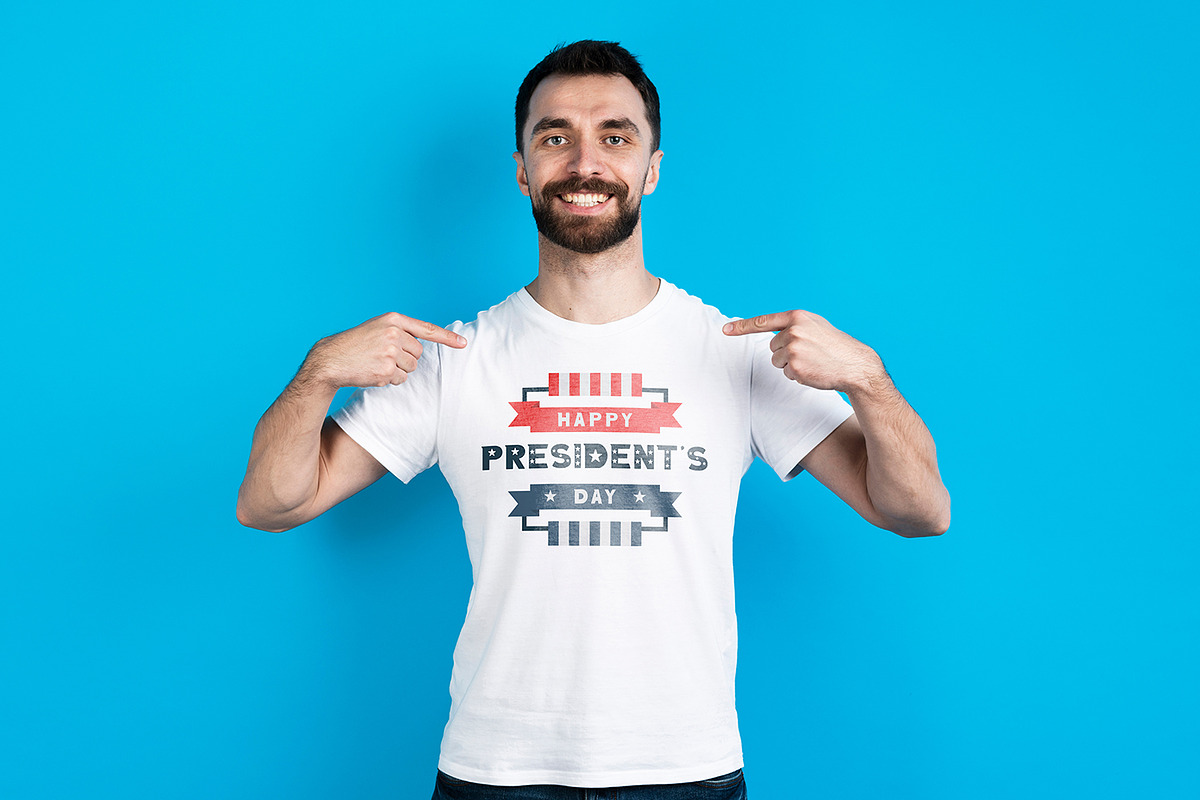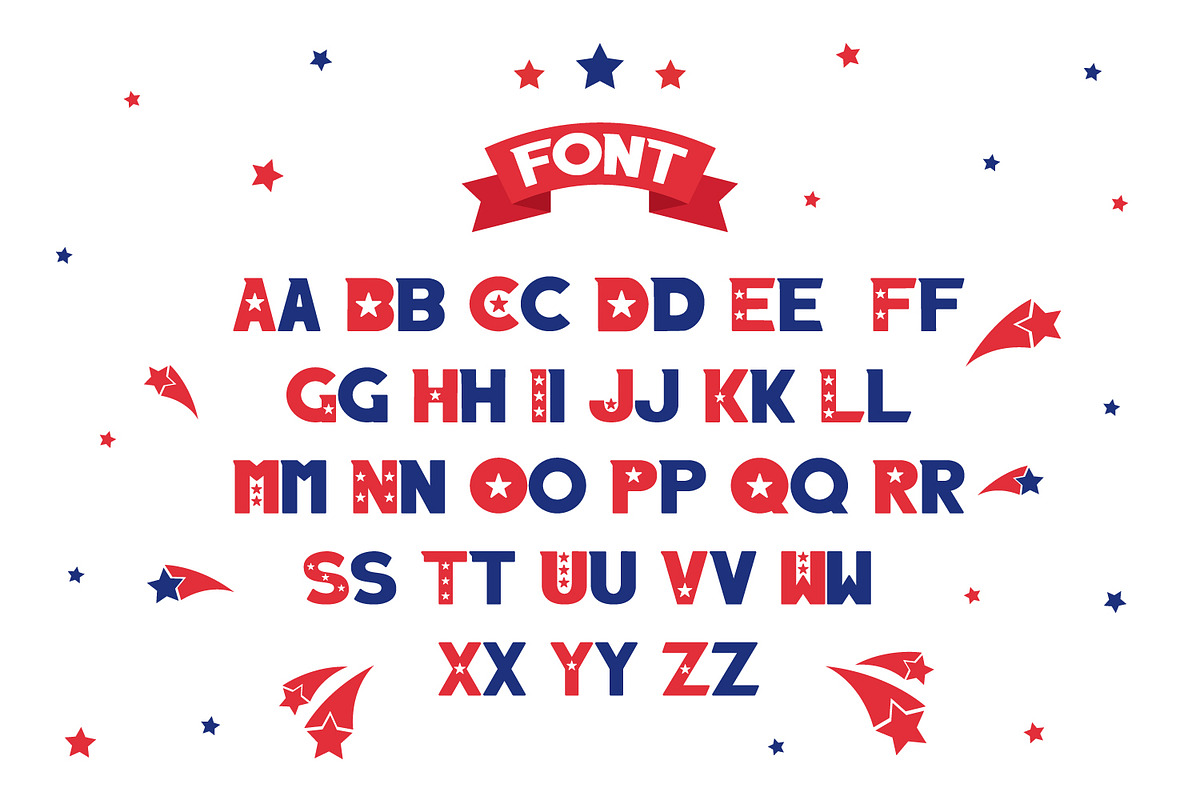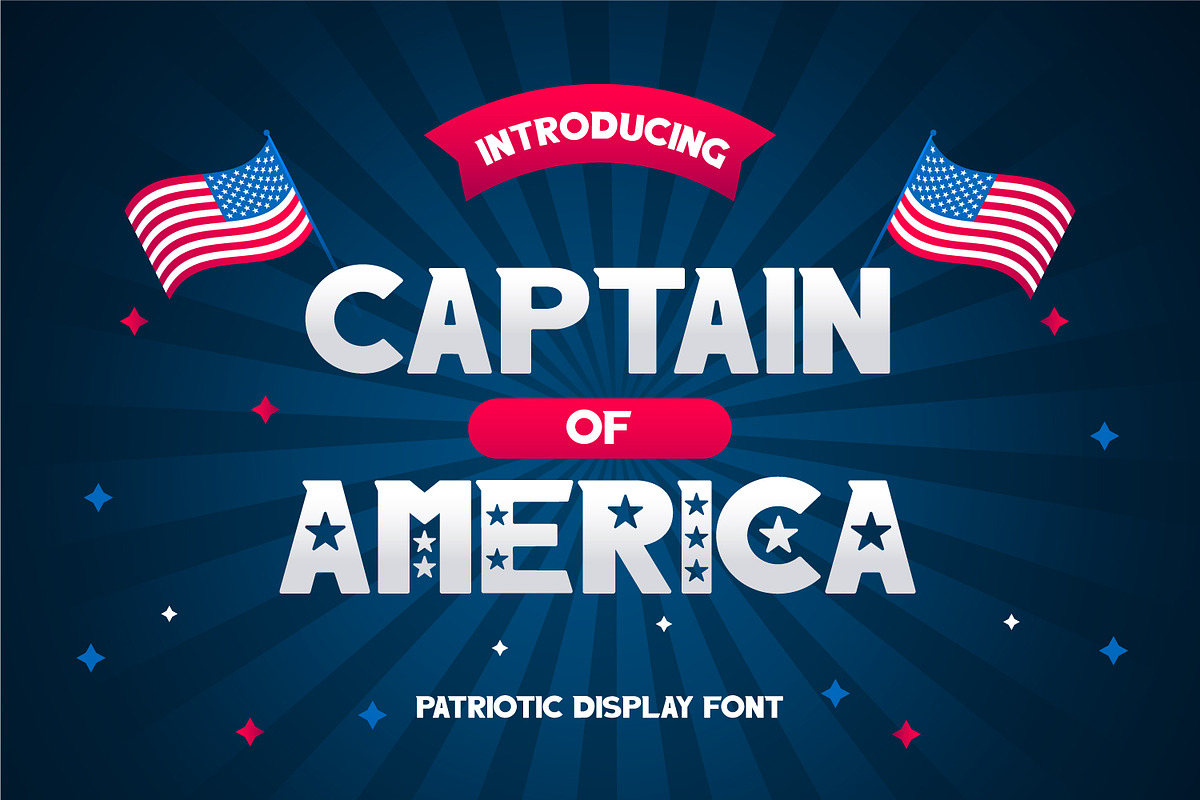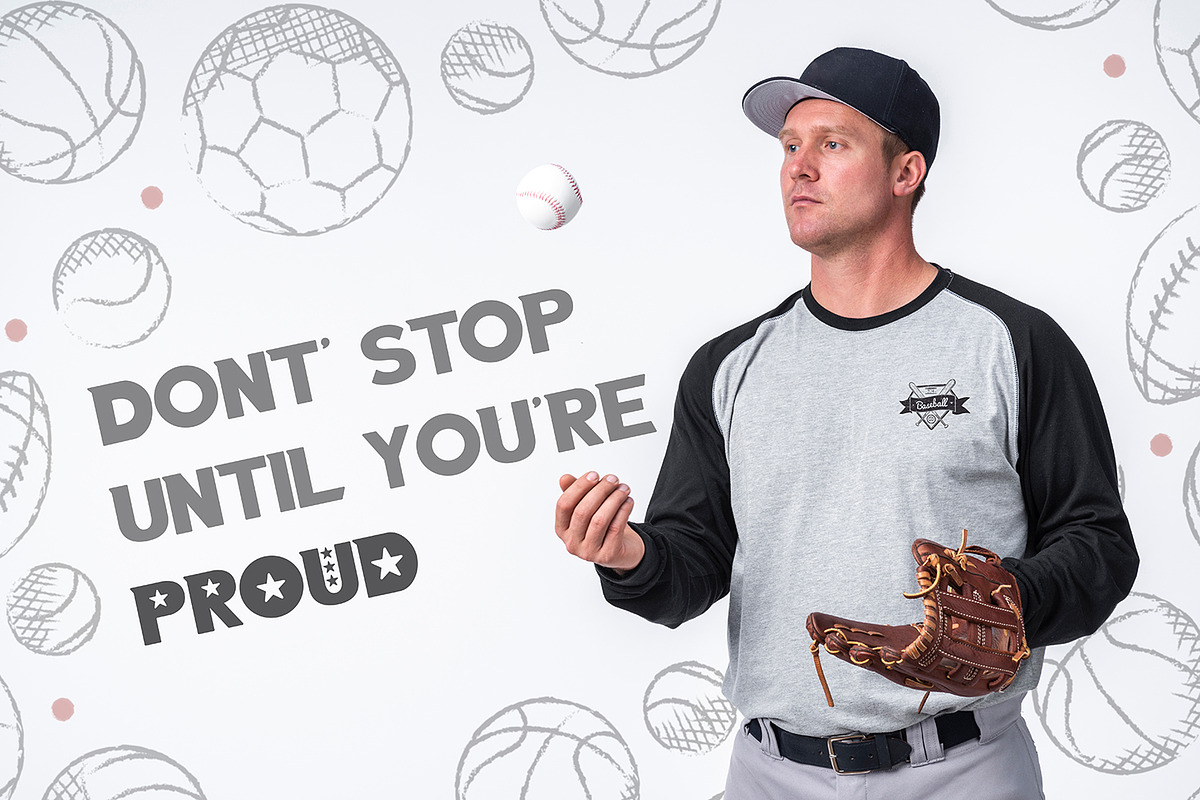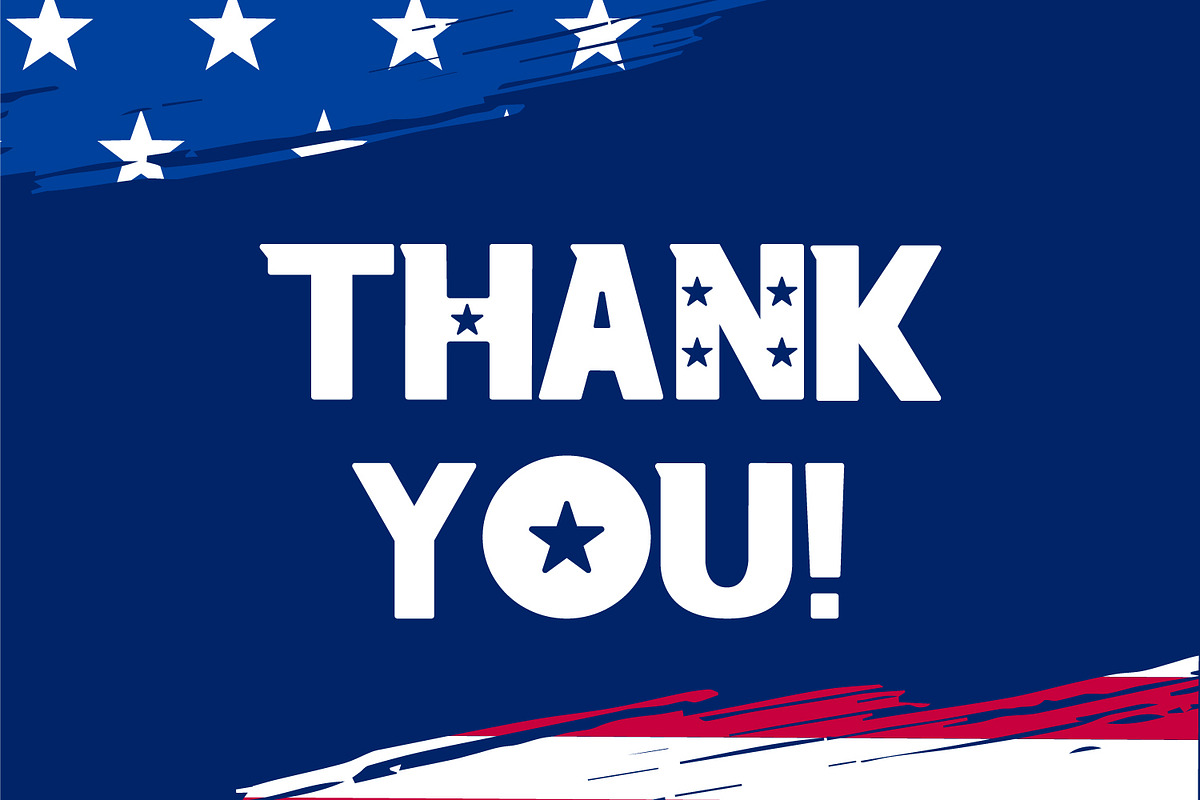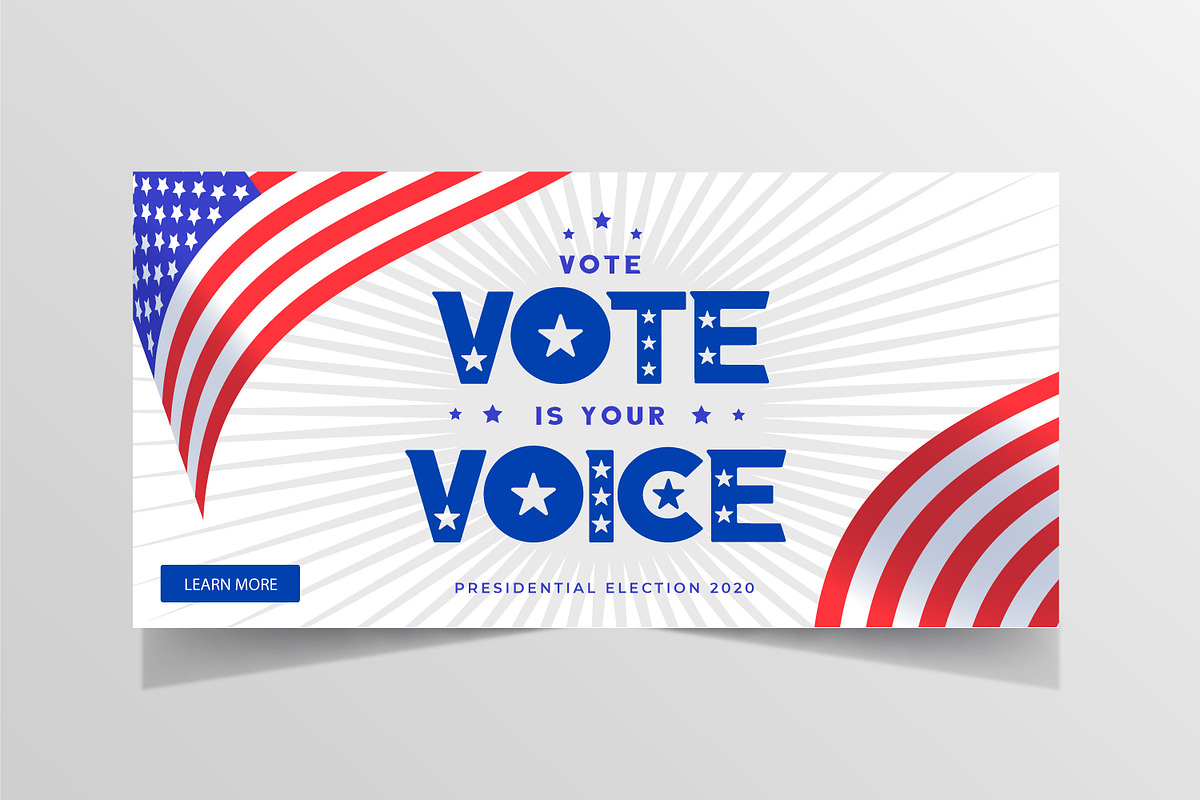
Captain of America
Captain of America is a patriotic display font. Brighten up all your crafting projects with this unique, festive and bold typeface!